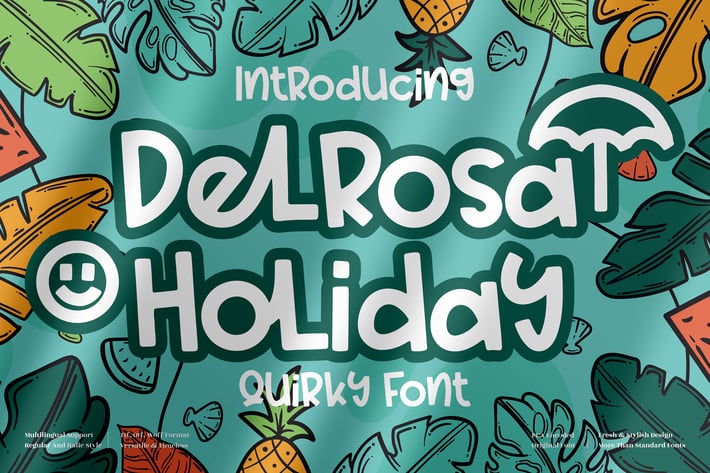
Delrosa Holiday Quirky Font
Delrosa Holiday is a playful and quirky display font designed to bring instant joy, warmth, and holiday vibes to your designs. With its chunky letterforms, rounded edges, and cheerful personality, this font feels fun, friendly, and super approachable — perfect for designs that want to feel happy and alive.
Delrosa Holiday captures a lighthearted, vacation-ready mood with a cute and quirky style that instantly stands out. Its bold shapes and playful rhythm make it ideal for kid-friendly visuals, festive themes, and joyful branding that doesn’t take itself too seriously.
Fun & quirky display letterforms
Bold, rounded shapes with strong readability
Friendly personality with playful details
Works great at large sizes for headlines
Holiday & seasonal designs
Kids content & playful branding
Posters, flyers, and greeting cards
Social media graphics
Packaging and fun product labels
A cheerful font that turns every design into a mini holiday.*